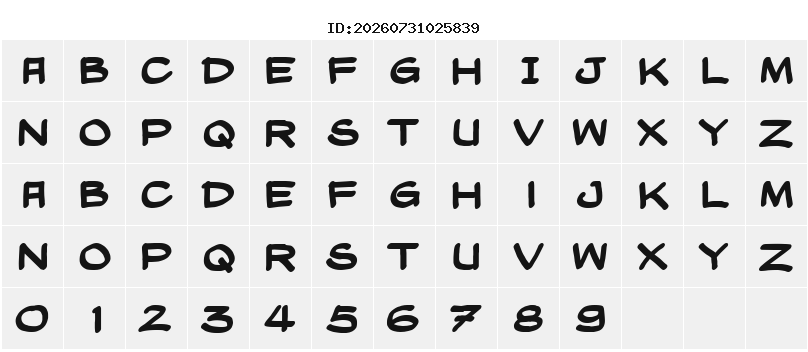
• Font Name: Lito Lapad
• Full Font Name: Lito Lapad Bold
About Lito Lapad.ttf
Lito Lapad.ttf is a modern, elegant sans-serif font designed for ultimate readability and visual harmony. Perfect for branding, headlines, web design, and print materials.